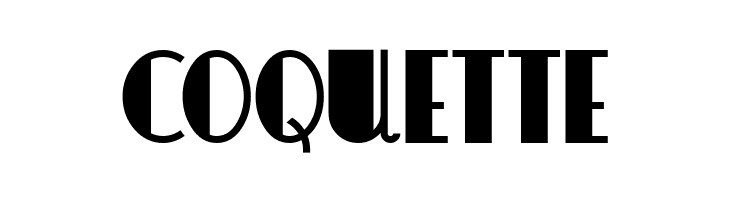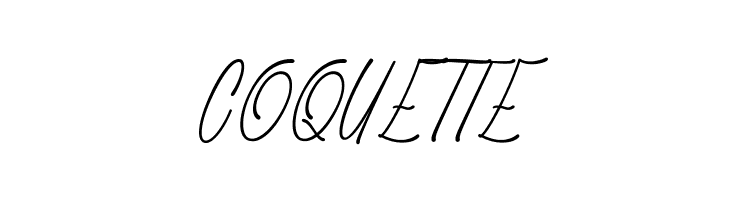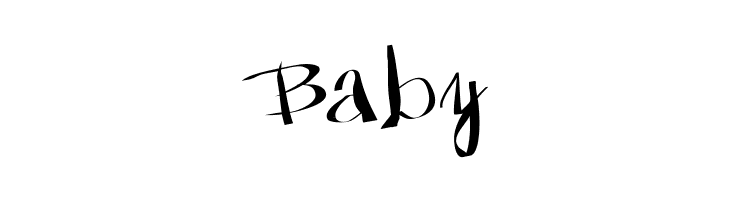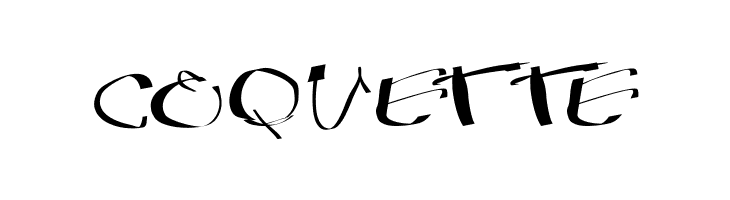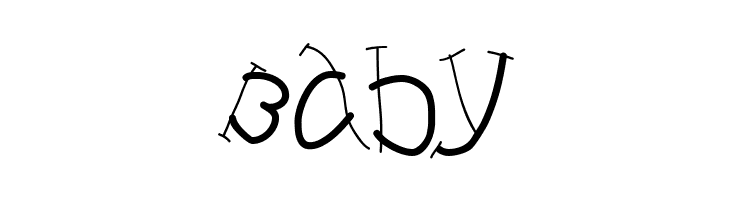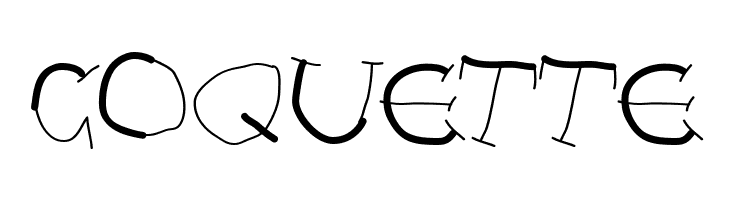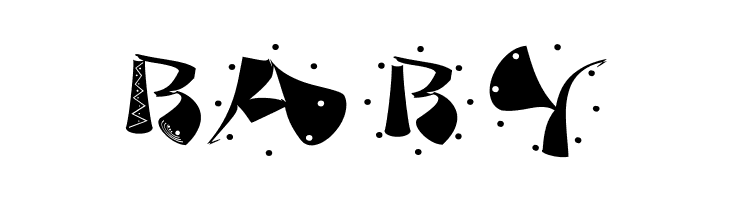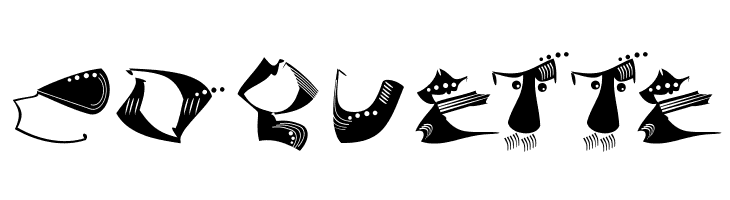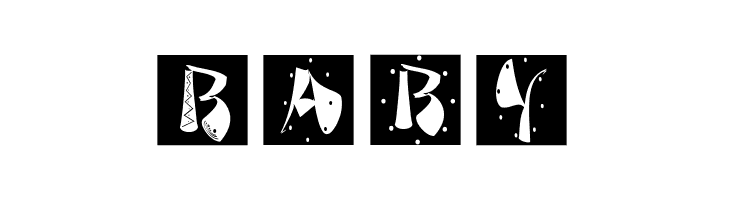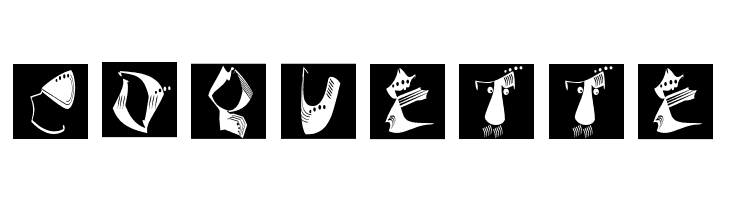
• Anarchica
A bold, graffiti-inspired font with sharp, angular strokes and a dynamic, hand-drawn style.
• Anarchistica
A playful, hand-drawn font with irregular, dynamic letterforms.
• AnarchoCaps
A bold, chaotic, and abstract decorative font with unique, fragmented letterforms.
• AnarchoSquares
A decorative and artistic font with abstract, square-enclosed characters.
• Anathemathise_PersonalUseOnly
A sophisticated handwritten font with elegant, flowing lines and a dynamic slant.
• Ancestors
• AncestorsMK07
A decorative font featuring intricate illustrations within each character.
• Anchor Jack
A bold, geometric font with a strong, modern presence.
• Anchor Steam NF
A bold, Art Deco-inspired font with geometric shapes and sharp angles.
• Ancient Autobot
( Giedi Prime )
A futuristic, angular font with a robotic and mechanical aesthetic.